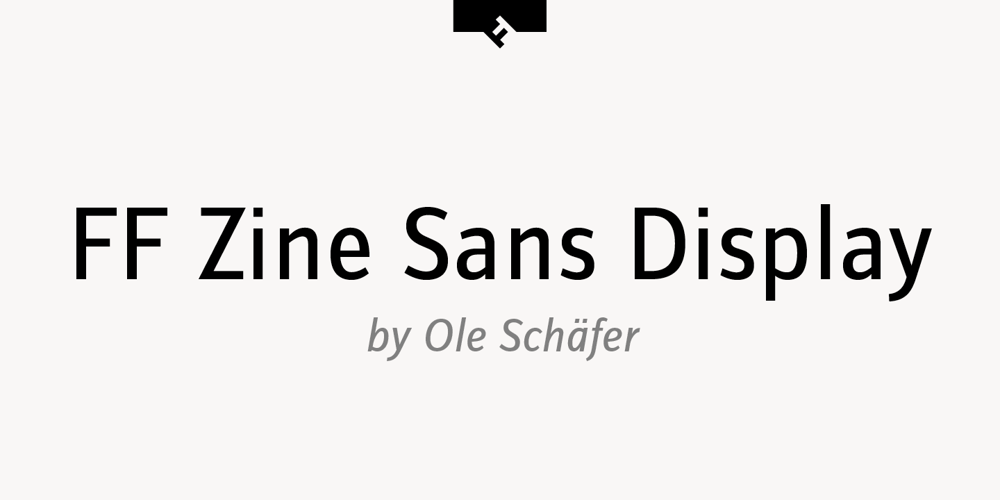
FF Zine Sans Display
FF Zine Sans Display font
FF Zine Sans Display Font Family was designed by Ole Schäfer and published by FontFont. FF Zine Sans Display contains 10 styles and family package options. German type designer Ole Schäfer created this sans FontFont in 2001. The family has 10 weights, ranging from Regular to Black (including italics) and is ideally suited for editorial and publishing and sports. FF Zine Sans Display provides advanced typographical support with features such as ligatures, alternate characters, case-sensitive forms, super- and subscript characters, and stylistic alternates. It comes with proportional lining and tabular lining figures. This FontFont is a member of the FF Zine super family, which also includes FF Zine Serif Display and FF Zine Slab Display.